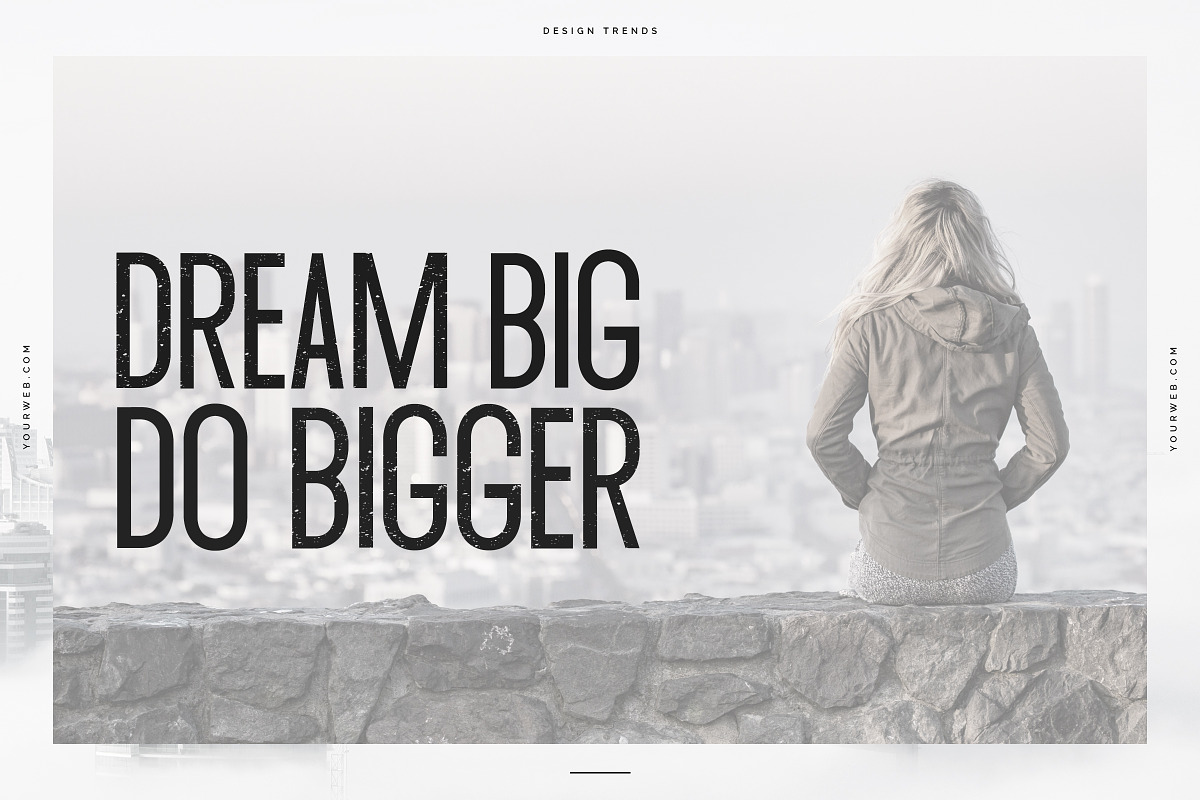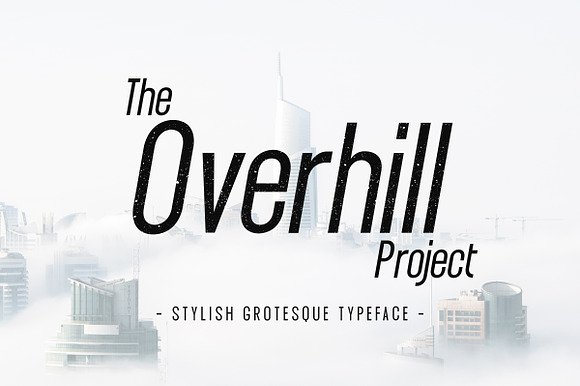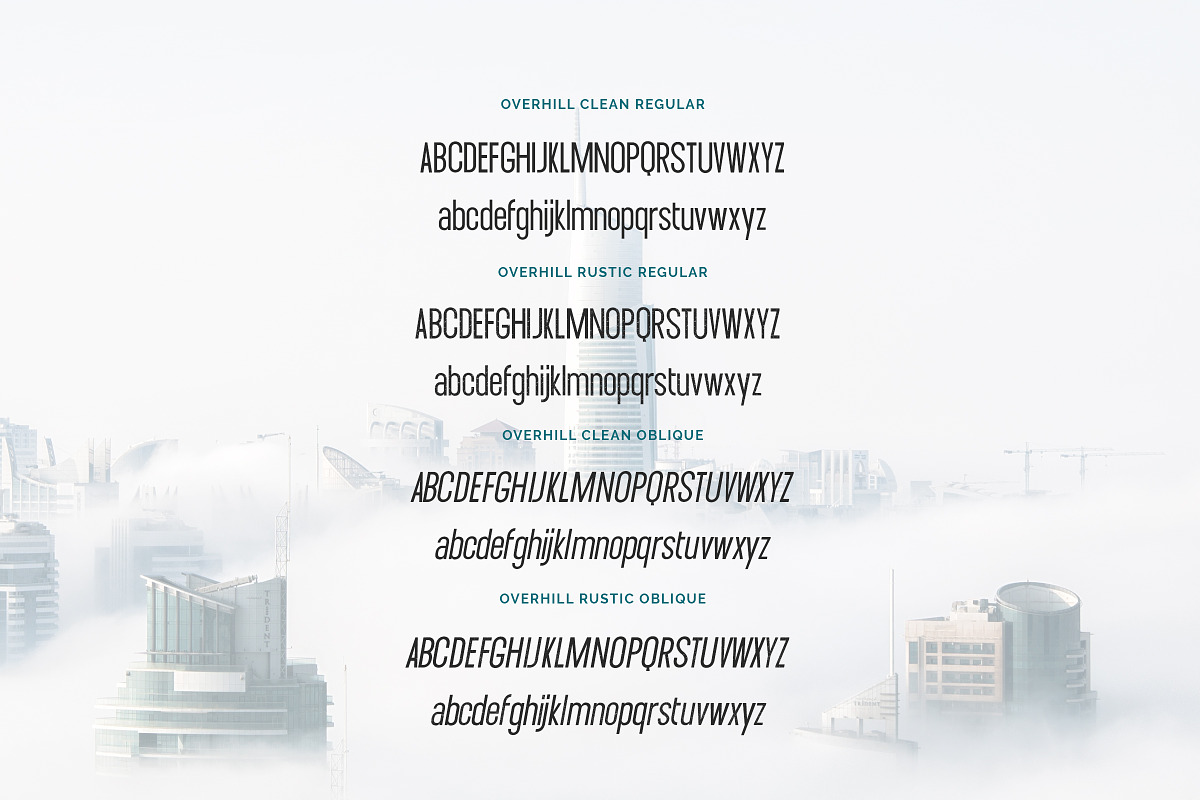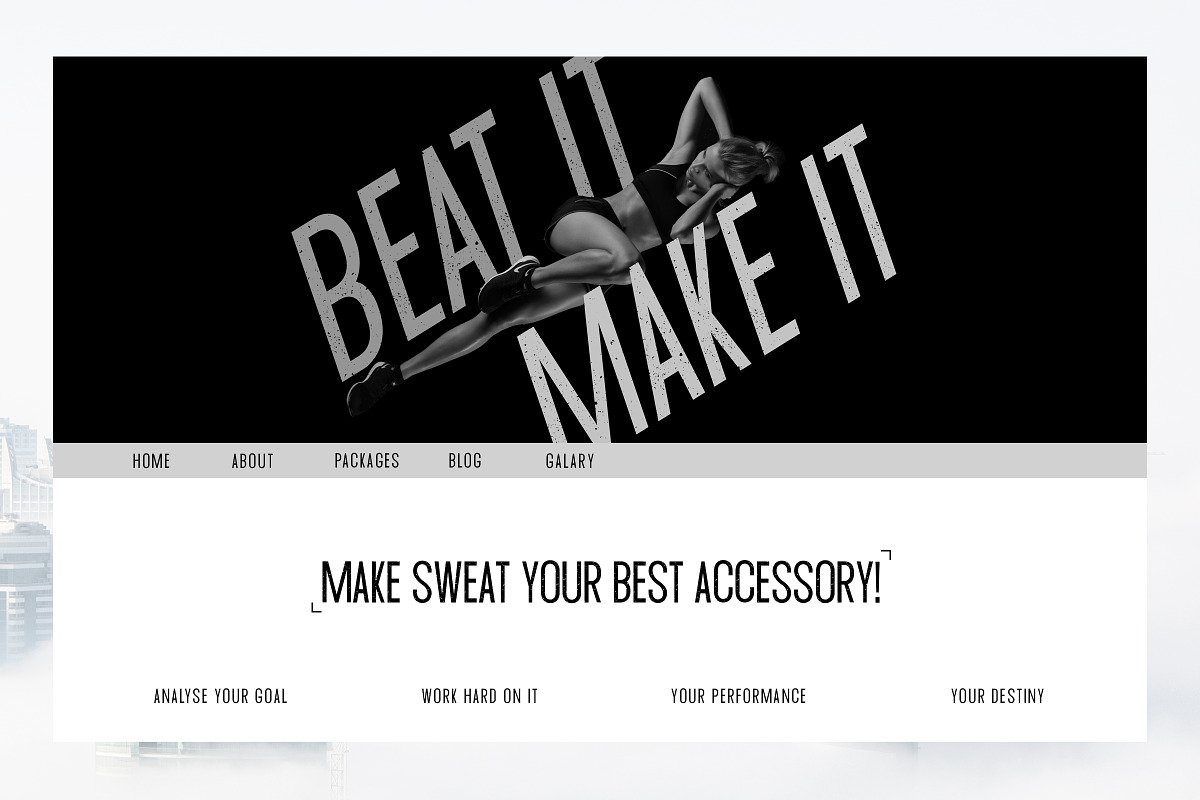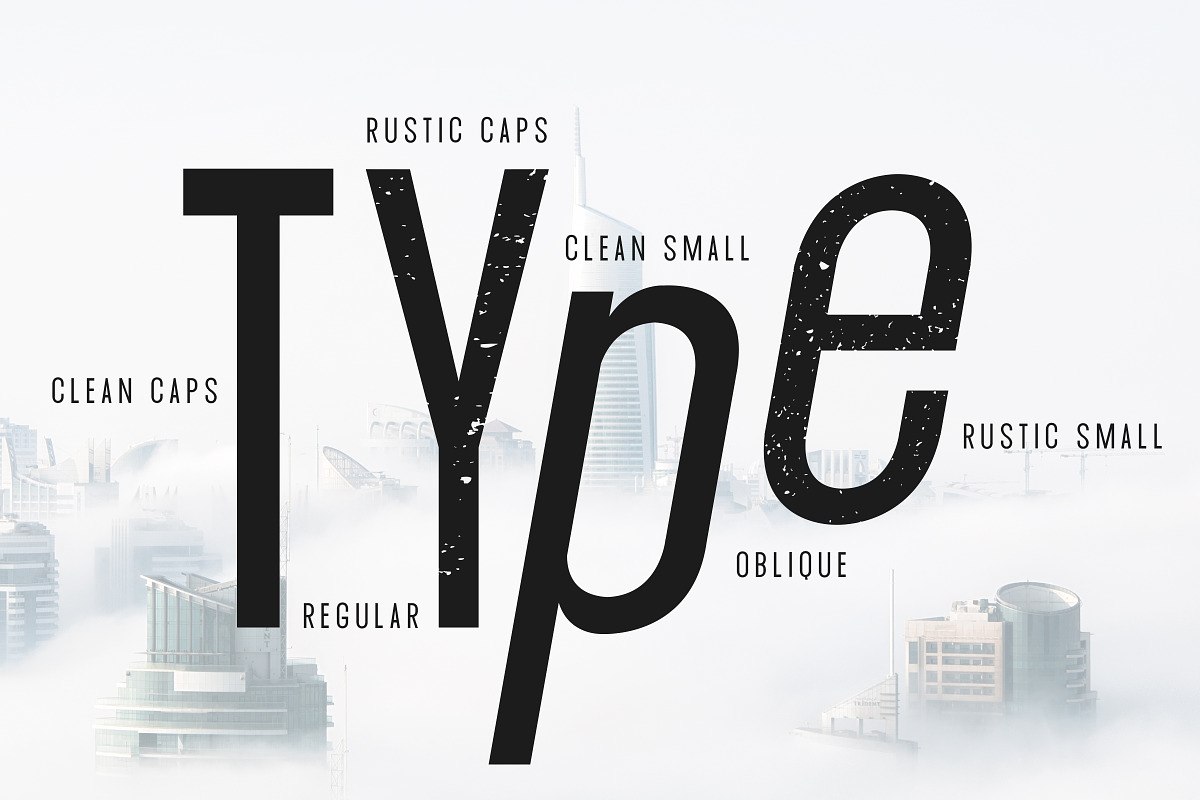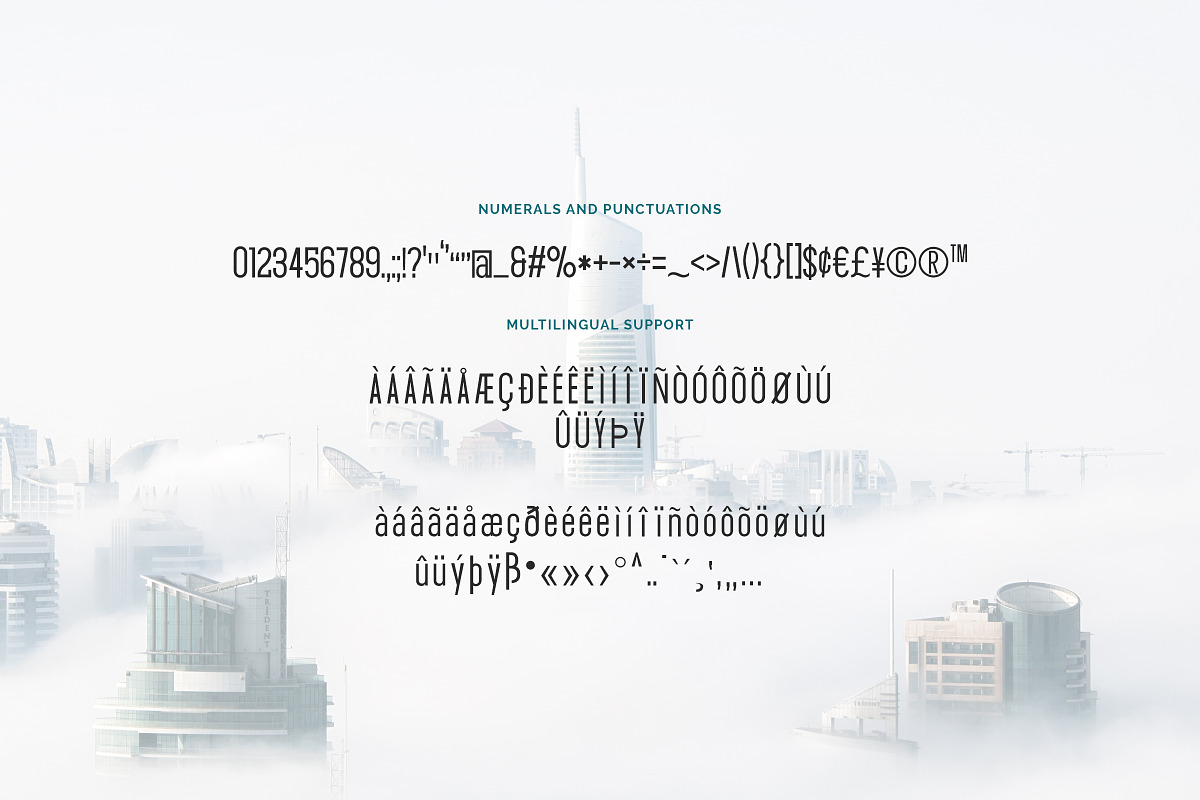
The Overhill Project - Display Font
A stylish grotesque typeface with Regular and Italic style when you need strong typographic designs must fit into tight spaces. Both fonts are also available in Clean & Textured style. All fonts are vector and you can make as large as you want. The fonts are made for usability and versatility on your display type designs. All texture and clean fonts are highly detailed and optimized, perfect for high quality print and design.
Overhill Clean Regular
Overhill Clean Oblique
Overhill Rustic Regular
Overhill Rustic Oblique
All the fonts are in vector shape, you can enlarge as you want. All the 4 typefaces are simple and functional condensed sans-serif. You can use the fonts in your blog, website, social media or any end product for unlimited sale.